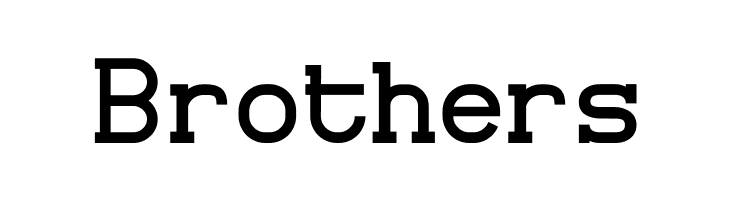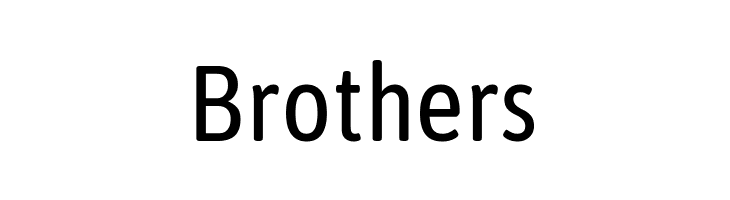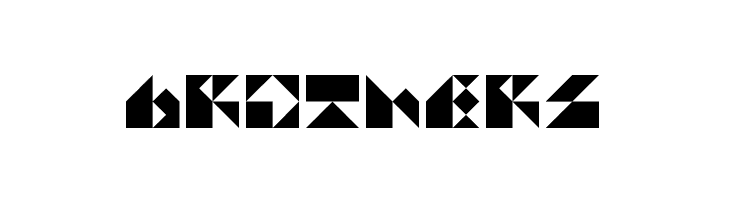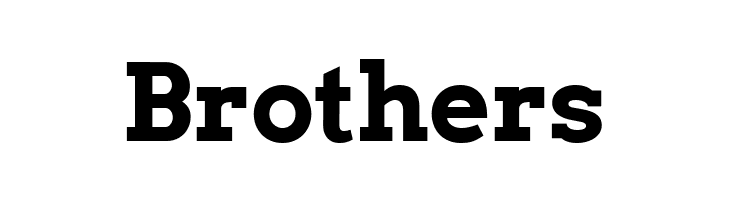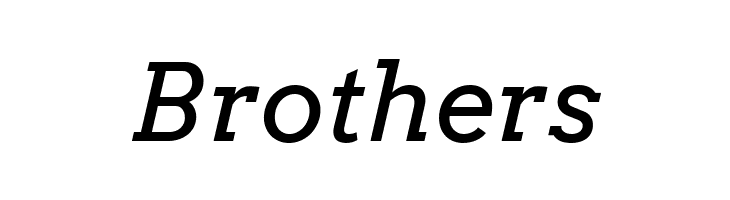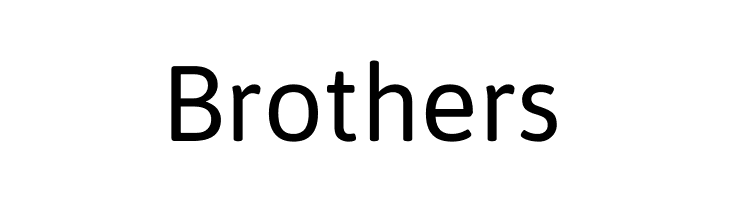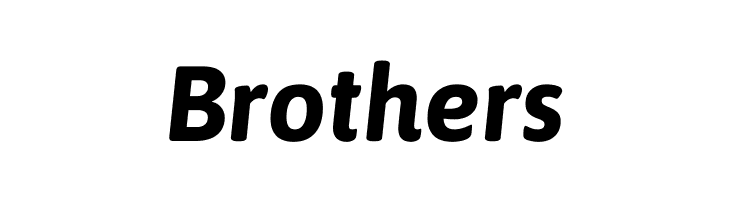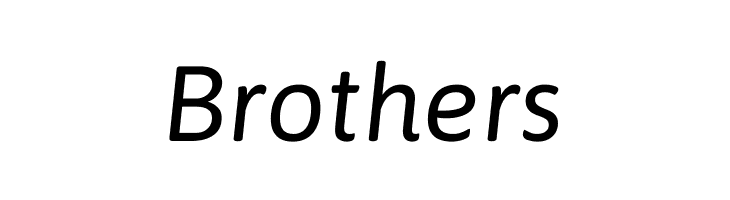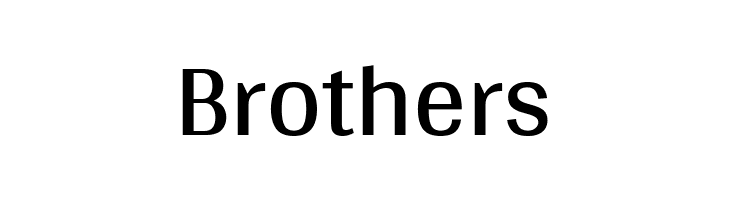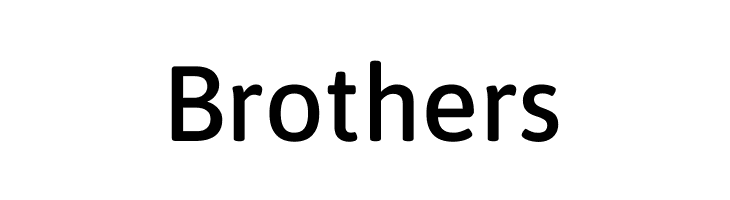
A bold slab serif font with strong, geometric shapes and minimal contrast.
A bold, italic serif font with modern aesthetics and strong visibility.
A modern serif font with an elegant italic slant and medium contrast.
A modern sans-serif font with clean lines and balanced proportions.
A bold, modern sans-serif font with excellent readability and balanced proportions.
A modern, sans-serif typeface with clean, geometric letterforms.
A dynamic, brush-style font with bold, energetic strokes.
An elegant script font with flowing, cursive lines and graceful curves.
An elegant, flowing script font with a calligraphic influence.
A bold, geometric font with an inverted shadow effect for a three-dimensional look.
A novelty font where each character is a different airplane or helicopter illustration.
A geometric, pixelated font with a retro digital aesthetic.
A pixelated, blocky font with a retro digital style.
A bold, cursive font with dynamic flow and interconnected letters.
A bold, flowing script font with a playful, artistic vibe.
A bold, geometric font with playful, angular characters.
A modern, clean sans-serif font with excellent readability.
A bold, modern sans-serif font with clean lines and uniform strokes.
A bold, condensed font with a modern and clean appearance.
A bold, italic, and condensed font perfect for dynamic and impactful text.
A modern, condensed italic font with a sleek and professional appearance.
A modern, condensed sans-serif font with medium weight and clear readability.
A modern, condensed sans-serif font with a medium weight and italic style.
A modern, condensed sans-serif font with excellent legibility and space efficiency.
A modern, condensed sans-serif font with excellent readability and balance.
A modern, condensed sans-serif font with bold, uniform strokes.
A modern, semi-bold, condensed italic font with clean lines and balanced characters.
A modern, condensed sans-serif font with clean lines and excellent legibility.
A modern, geometric sans-serif font with balanced proportions and clear legibility.
A modern, italic sans-serif font with medium weight and normal spacing.
A modern, geometric sans-serif font with a clean and professional appearance.